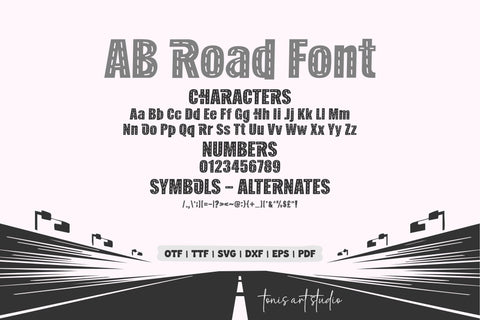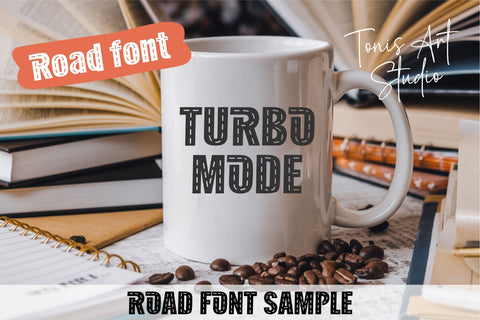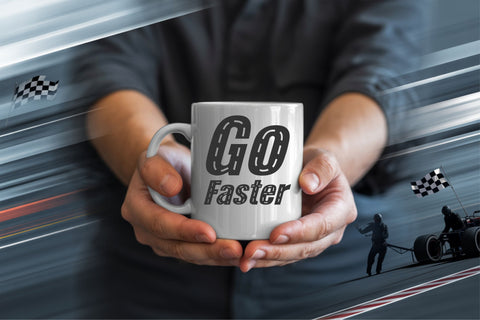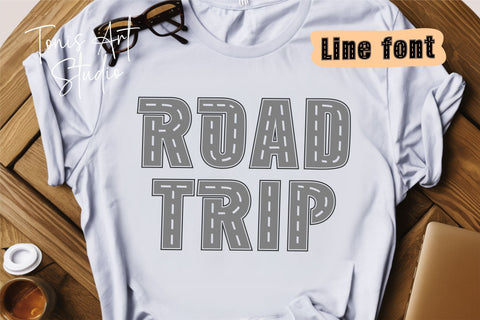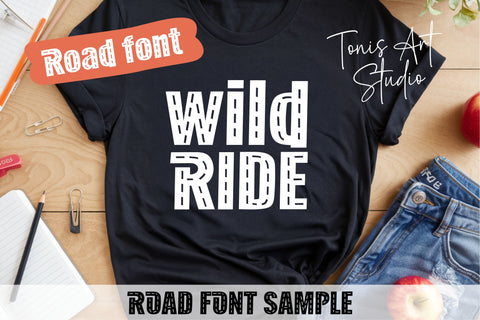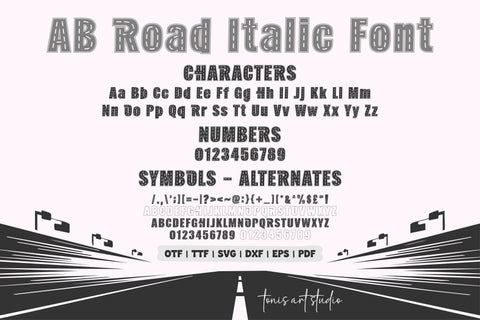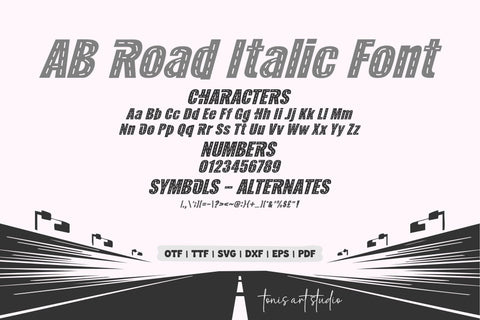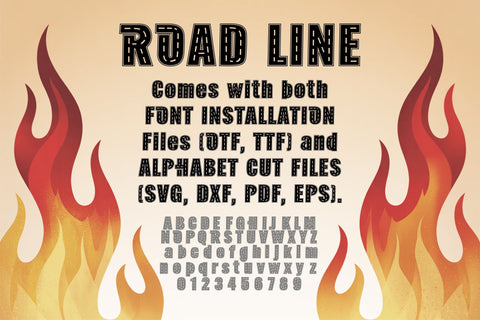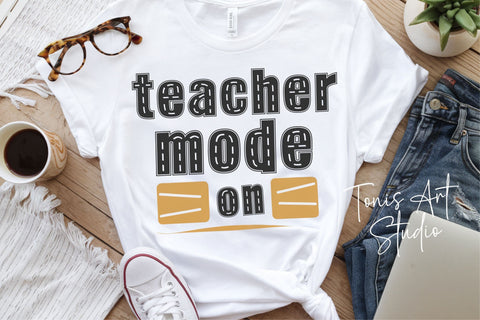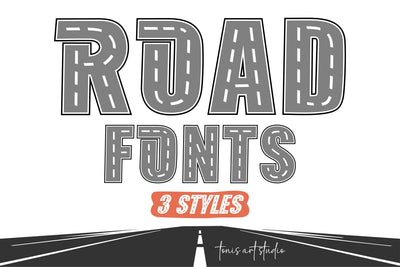
AB Road Fonts | Road Alphabet Racing Letters SVG OTF TTF
AB Road Fonts is a bold road-inspired font family created to capture the thrill of racing and the dynamic style of highways. With playful letters designed to look like road tracks, this font brings speed, movement, and excitement to every project. The set includes 3 unique styles — Normal, Line, and Italic — giving you the flexibility to mix and match for eye-catching designs.
Perfect for racing-themed T-shirts, car decals, sports posters, event banners, wall signs, and kids’ birthday party decorations, AB Road Fonts delivers a strong look that guarantees attention. Use it in Cricut, Silhouette, Glowforge, Procreate, Canva, and other design programs to craft standout projects. Its versatile style makes it ideal for both print and digital creations, adding a high-energy look to everything from classroom crafts to sports team graphics.
✔ Full alphabet (A–Z, a–z), numbers (0–9), punctuation, and symbols
Perfect for:
Racing party invitations and banners
Speed-themed wall art and name signs
Car enthusiast designs and sports merch
T-shirt graphics, mugs, posters, and stickers
Fun printable quotes and creative craft projects
AB Road Fonts guarantees a dynamic and fun finish to your projects, fueling them with racing excitement and bold design power.